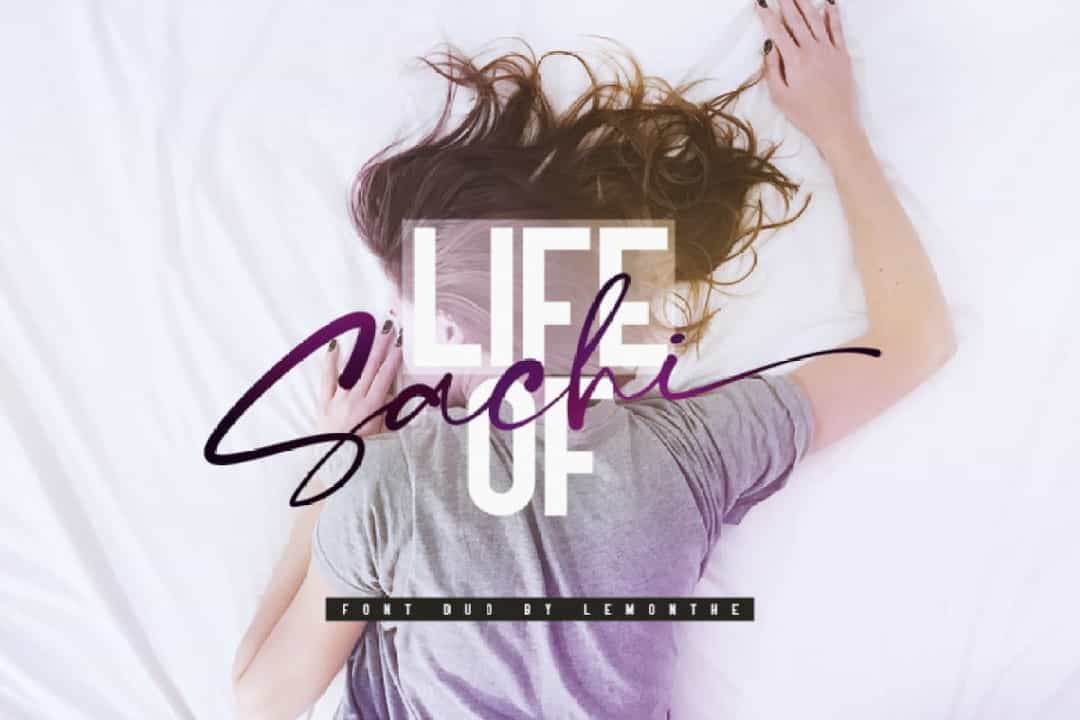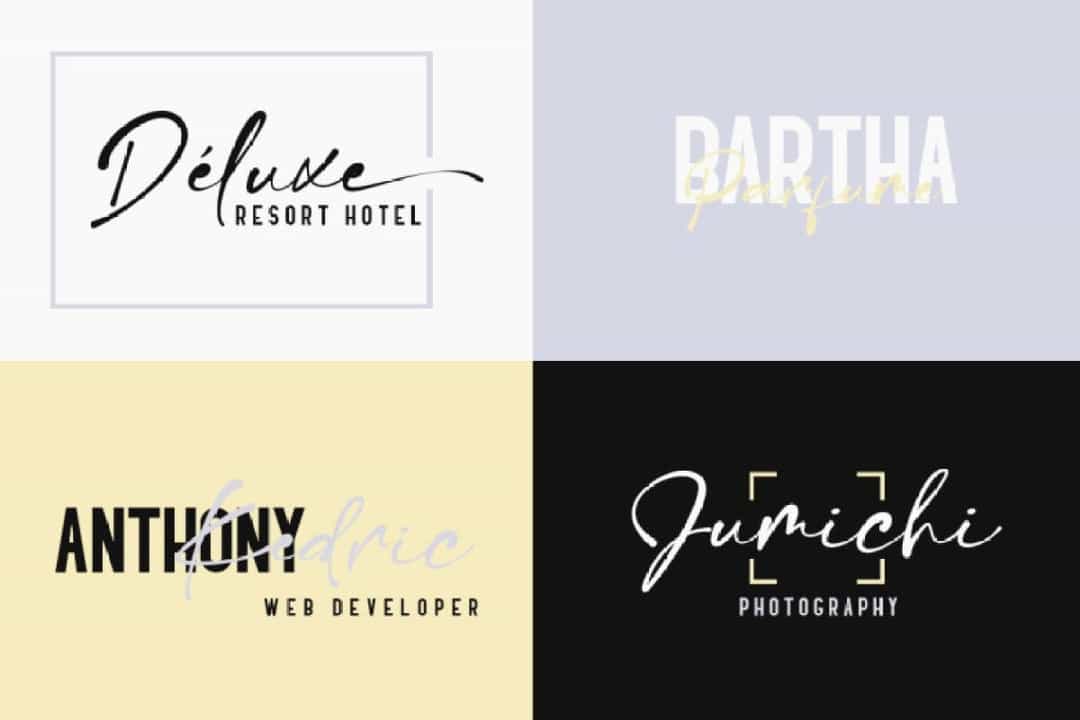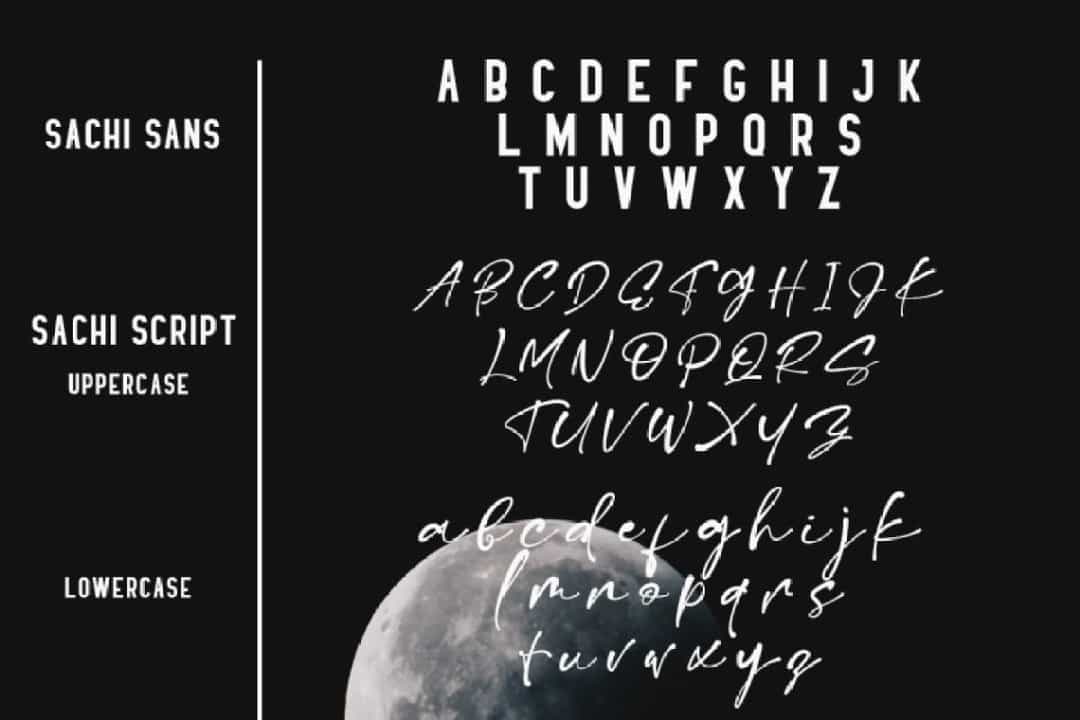
Discover Sachi Font Duo, part of the Sans Serif Handwritten collection—a versatile and unique font perfect for adding a personal touch to your projects. Download it for free and enjoy crafting designs with style, from invitations to social media posts. This font is available exclusively for personal use, giving you the freedom to create without limits. Unlock your creativity with Sachi Font Duo today!
Sachi a fantastic font duo combination of a signature and sans serif typeface. This font is stylish and sleek designs that will be perfect for those needing a font for your headlines, logotypes, clothing invitations, branding packaging, advertising, etc.